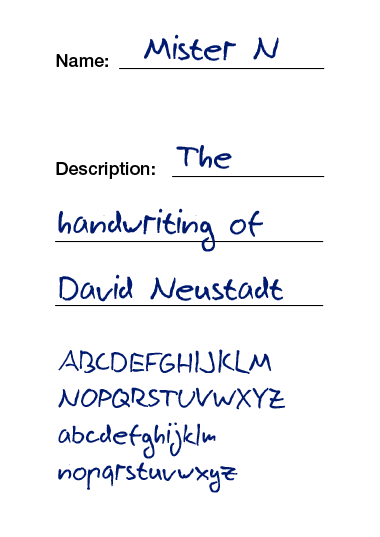
I'm speechless! That's quite an achievement, David.
Very very well done. You've pushed the envelop out once again.
what an achivement. Congrats.
Very nice indeed!
Congratulations! :)
yeah!
that's quite impressive!
I'd do a thousand of this if only i could zooom out a little more!!!
Otherwise it's just a meaning of patience...
cool!
Added numerals and punctuation marks.
I will eventually add more glyphs.
@kix: Well even if we could zoom out a little more, it would never be the same like vector drawn fonts, especially when it comes to print. This is just something for web & screen design with limited font sizes. It would take much more time to vectorize anyway, so it's a good compromise.
Very convincing digitization, David. Nicely done.
thanks for all the compliments... and here's a little something that shows what one can do with this creation beside writing :)
Beautiful work Mr. N. It must be nice to have a font of your very own handwriting. Franz Kafka is smiling.
Yes it's really fun to play with. To avoid pixelation you can use Photoshop or pretty much any image editing program that features selections. Create a selection of the font in any size you need it, smooth the selection and fill it. Depending on the font size you will have to use more or less smoothing. It's not perfect but comes next close to vectorizing.
Wow! Impresive work!
It looks so real in your example! Top!
I just had to do some fun with it!
very nice MustardMan, i like it a lot!
I love this! I'm trying to do something similar, imitating my own cursive and I'm going through hell. I just don't know how you did it! It's excellent.
thank, it very very nice
Love it! By the way, i don't think that you're handwriting is that bad, i can read it! If i would do this with my handwriting (if i would be able to) you weren't even able to read it so nice!
Mr N's writing is much better than mine!
I would like to see more glyphs :)
@jphturtle same